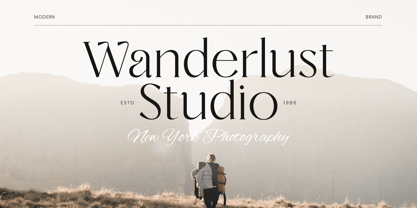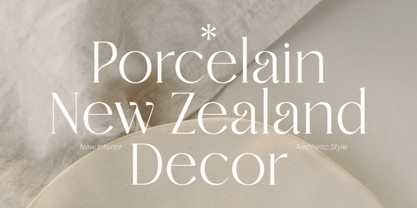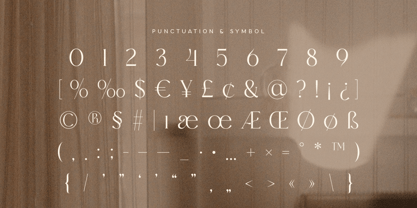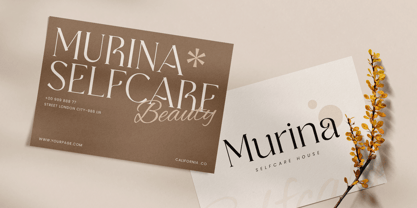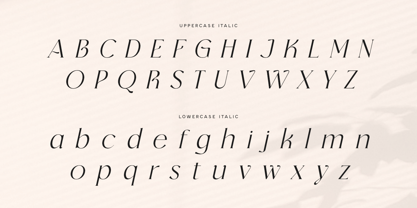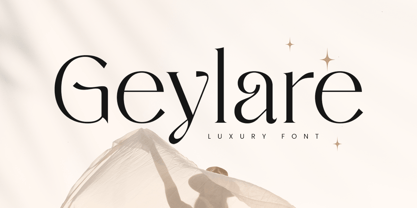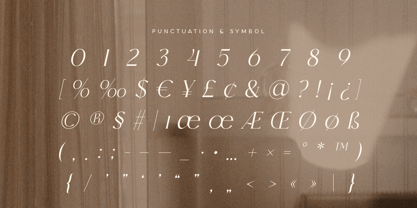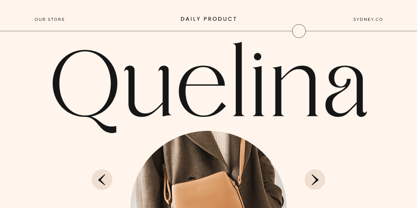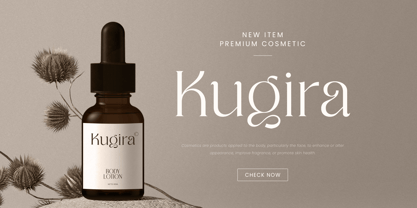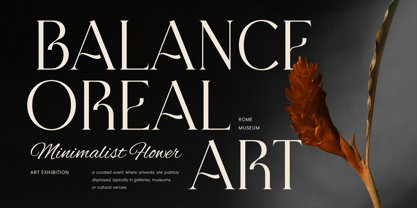
Geylare
A família de fontes Geylare foi desenhada por Zamroni Hamzah e publicada pela Sensatype Studio. Geylare contém 2 estilos e opções de pacote familiar. Saiba mais sobre esta família
Geylare - Luxury Font
Geylare is a luxurious display font that combines unique character with modern elegance. Created to bring a touch of sophistication to your designs, Geylare is perfect for branding, high-end packaging, and editorial projects. Its distinct style makes it a standout choice for designers seeking to create visually stunning and memorable works.
The story of Geylare began with the vision of merging opulence and distinctiveness in a single typeface. Each character is meticulously crafted to ensure it adds a touch of uniqueness to any project. This font is ideal for those who want to make a bold statement, whether it’s for logos, invitations, or digital content. Geylare’s luxurious feel and unique design elements make it a versatile choice for various design needs.
Geylare comes packed with a wide range of features to support your creative endeavors. It includes a set of huge unique characters, along with punctuation, numbers, and symbols. Available in multiple formats, it ensures compatibility across different platforms and software. With multilingual support and opentype features, Geylare is designed to meet the needs of designers worldwide.
Geylare Luxury Font Features:
• Huge Unique Characters Inside
• Punctuation, Number, and Symbol
• Uppercase and Lowercase
• Multilingual Support
• Opentype Features